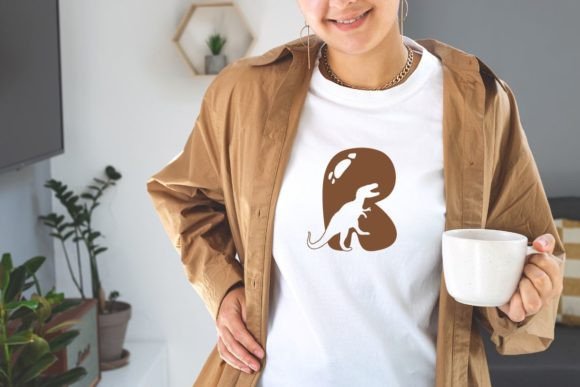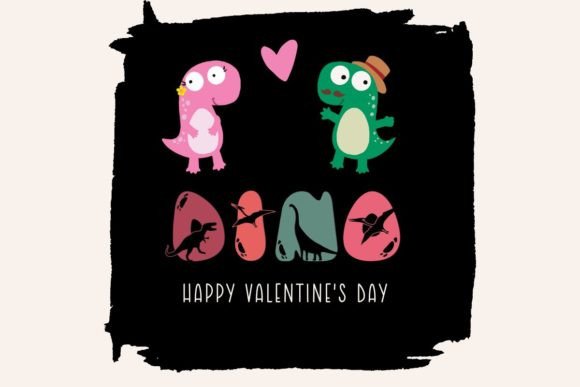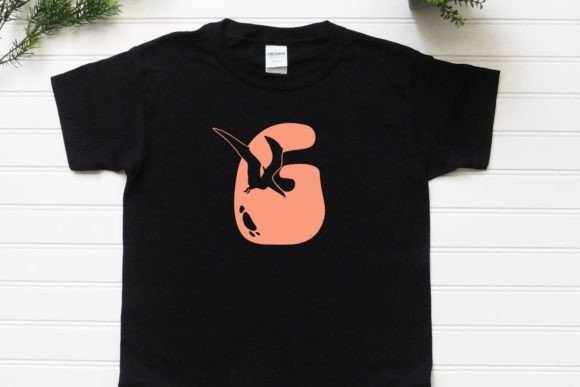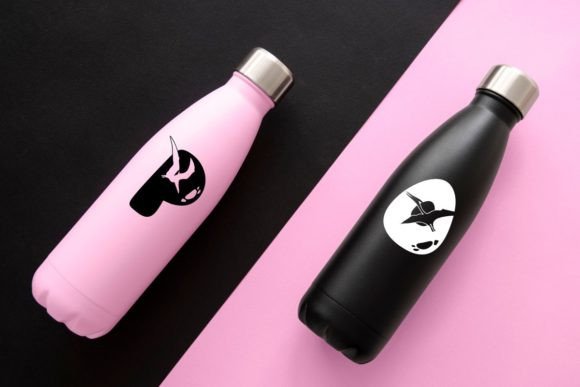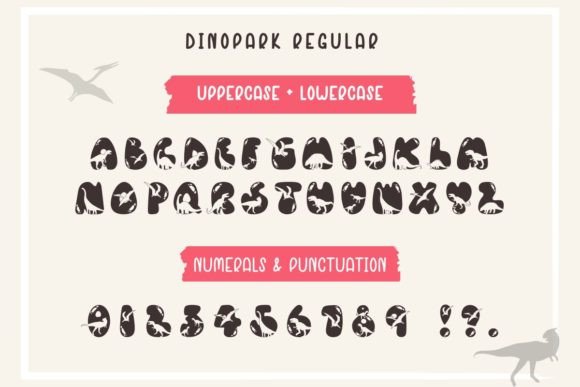
Unleash Your Creativity with Dinopark Font: A Fun and Cute Decorative Font for Designers and Crafters
Are you tired of using the same old fonts for your designs? Do you want to add a touch of fun and whimsy to your creations? Look no further than Dinopark Font, a cute decorative font that’s perfect for designers and crafters of all levels. In this article, we’ll explore the features and benefits of Dinopark Font, and show you how it can help you take your designs to the next level.
What is Dinopark Font?
Dinopark Font is a unique and playful font that’s designed to bring a smile to your face. With its cute and quirky style, it’s perfect for creating a wide variety of designs, from banners and posters to social media posts and mugs. Whether you’re a professional designer or a crafter looking for a fun way to express yourself, Dinopark Font is sure to delight.
Key Features of Dinopark Font
- Cute and playful style: Dinopark Font features a unique and adorable design that’s sure to capture the attention of your audience.
- Perfect for a variety of designs: From banners and posters to social media posts and mugs, Dinopark Font is versatile enough to be used for a wide range of projects.
Ideas for Using Dinopark Font
Dinopark Font is perfect for a wide range of designs, including:
- Banners and posters: Create eye-catching banners and posters for events, sales, and promotions.
- Social media posts: Add a touch of fun to your social media posts with Dinopark Font.
- Mugs and water bottles: Create personalized mugs and water bottles with cute and quirky designs.
- Cards and invitations: Add a personal touch to your cards and invitations with Dinopark Font.
- Shirts and apparel: Create fun and playful designs for shirts, hoodies, and other apparel.
Benefits of Using Dinopark Font
By using Dinopark Font, you’ll enjoy a range of benefits, including:
- Increased creativity: Dinopark Font’s playful style will inspire you to think outside the box and try new things.
- Time-saving: With Dinopark Font, you can create professional-looking designs in no time.
- Unique designs: Dinopark Font’s unique style will help your designs stand out from the crowd.